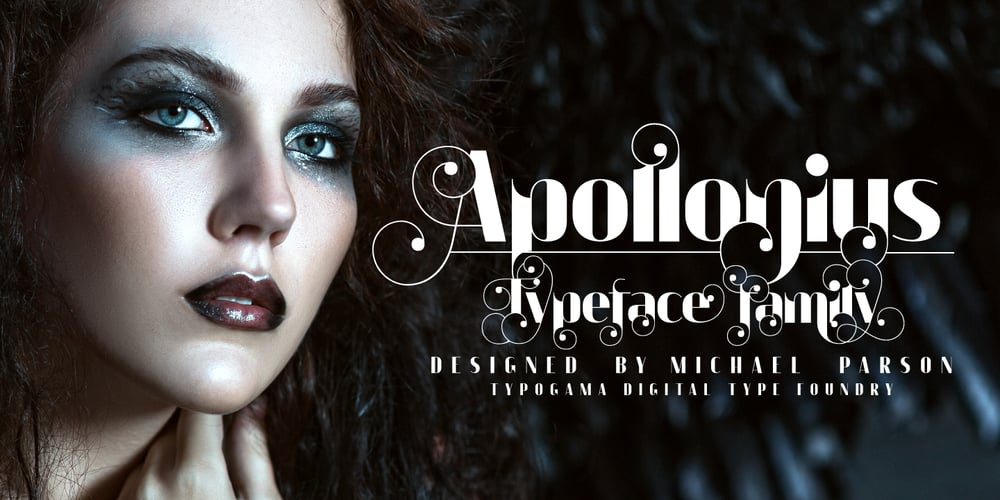
Apollonius Font Family was designed by Michael Parson and published by Typogama. Apollonius contains 1 styles and family package options. Apollonius is a high contrast, display typeface designed by Michael Parson. Packed with Opentype features, this single weight font offers a whole range of options that designers can explore and play with to create stunning layouts.